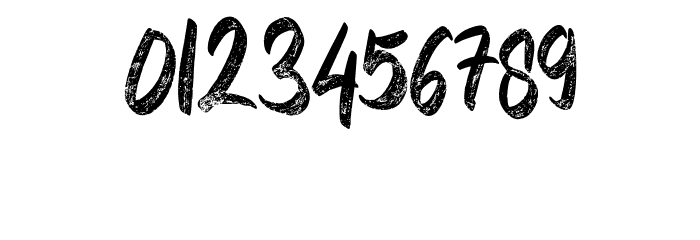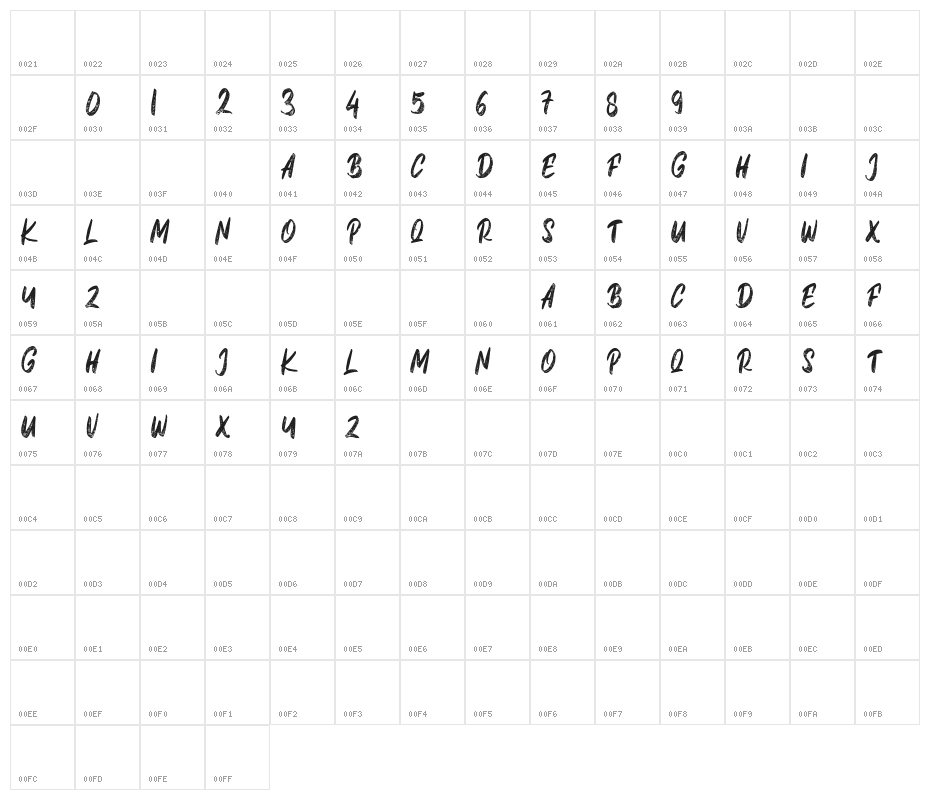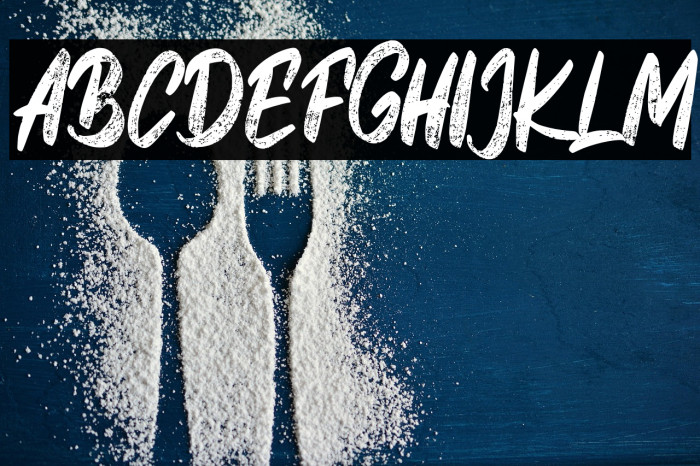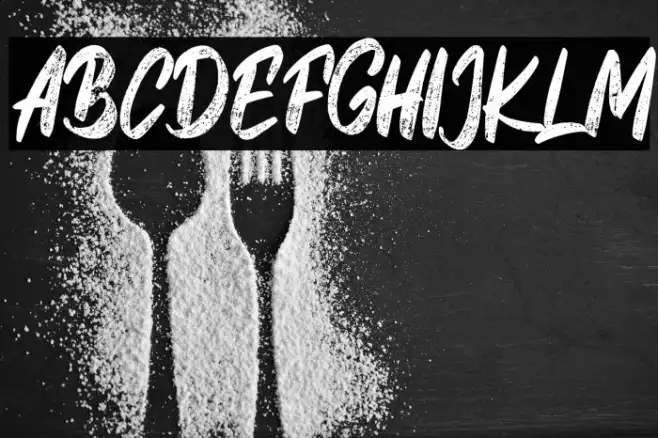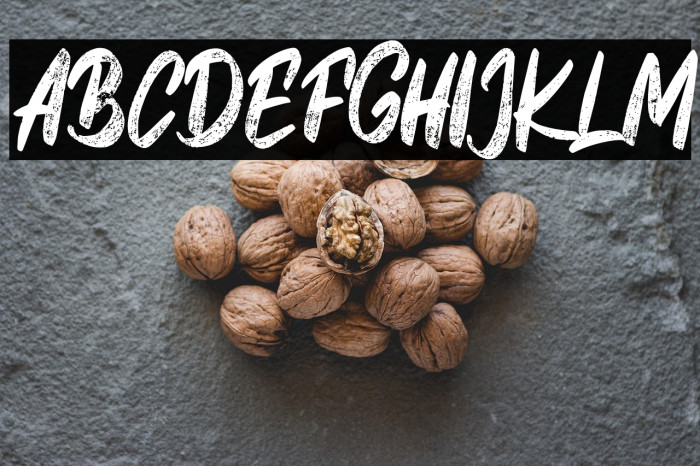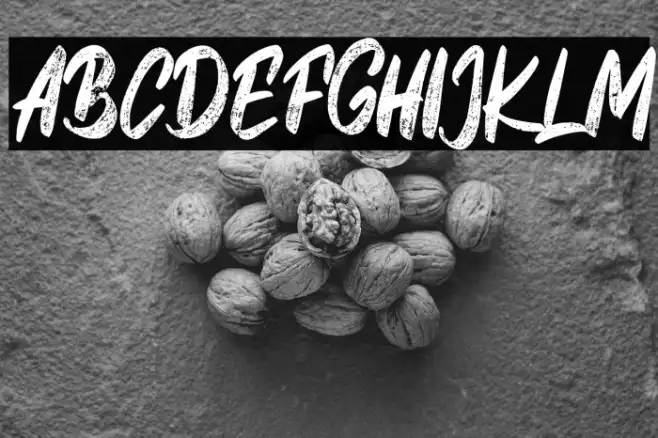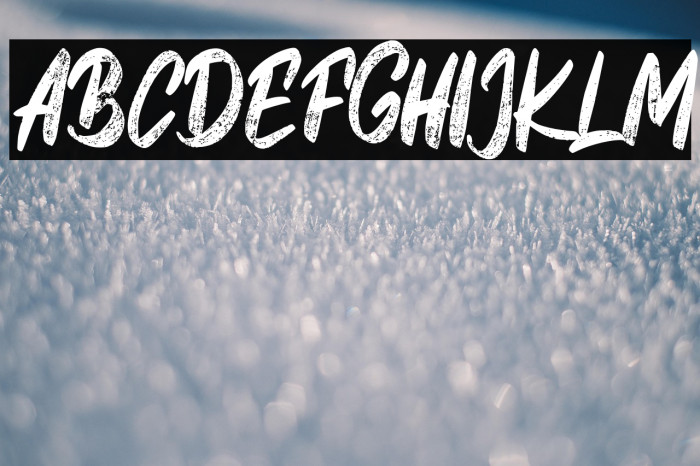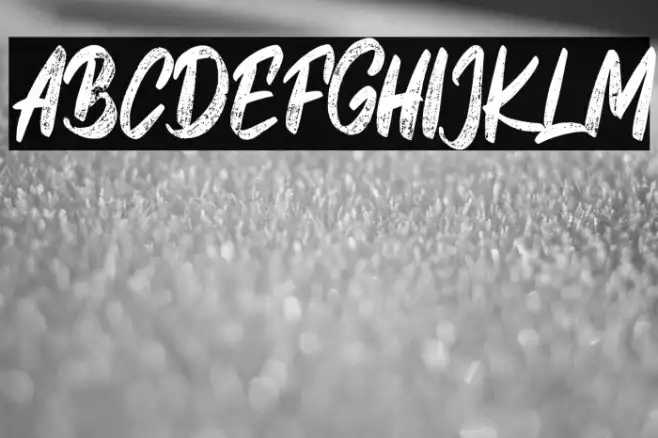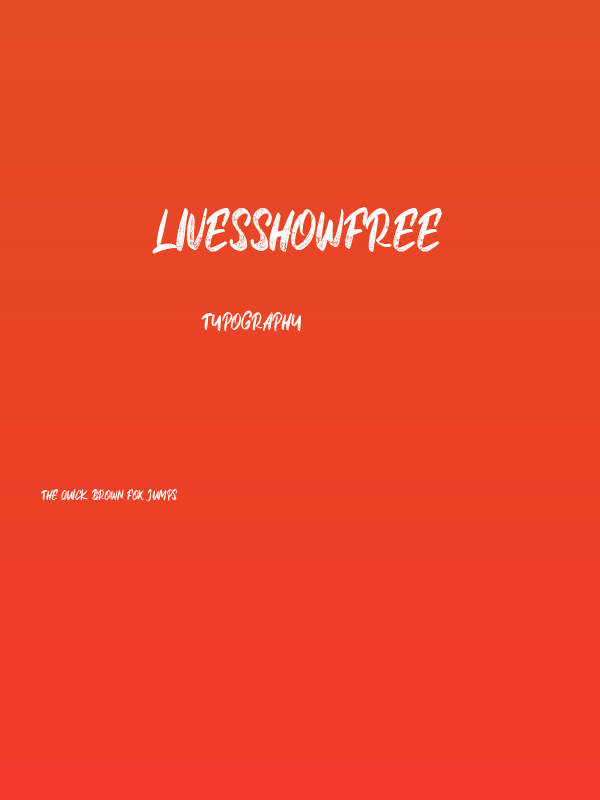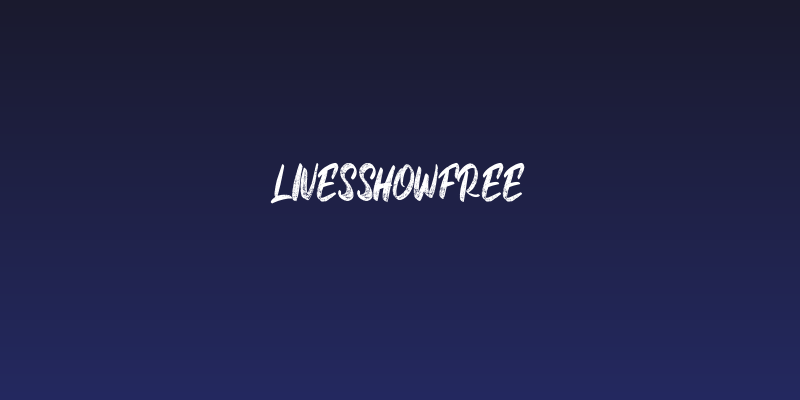
LivesShowFREE Font
LivesShowFREE Description
This font features a bold, brush-style script with a textured, distressed appearance that adds a dynamic and energetic feel. The strokes are thick and expressive, giving each character a sense of movement and spontaneity. The uppercase and lowercase letters are well-balanced, maintaining a consistent flow throughout. The numbers and special characters are designed to match the overall aesthetic, ensuring a cohesive look. This font is perfect for projects that require a bold statement or a creative touch.
| Proposed Projects | Ideal for posters, branding, social media graphics, and creative design projects. |